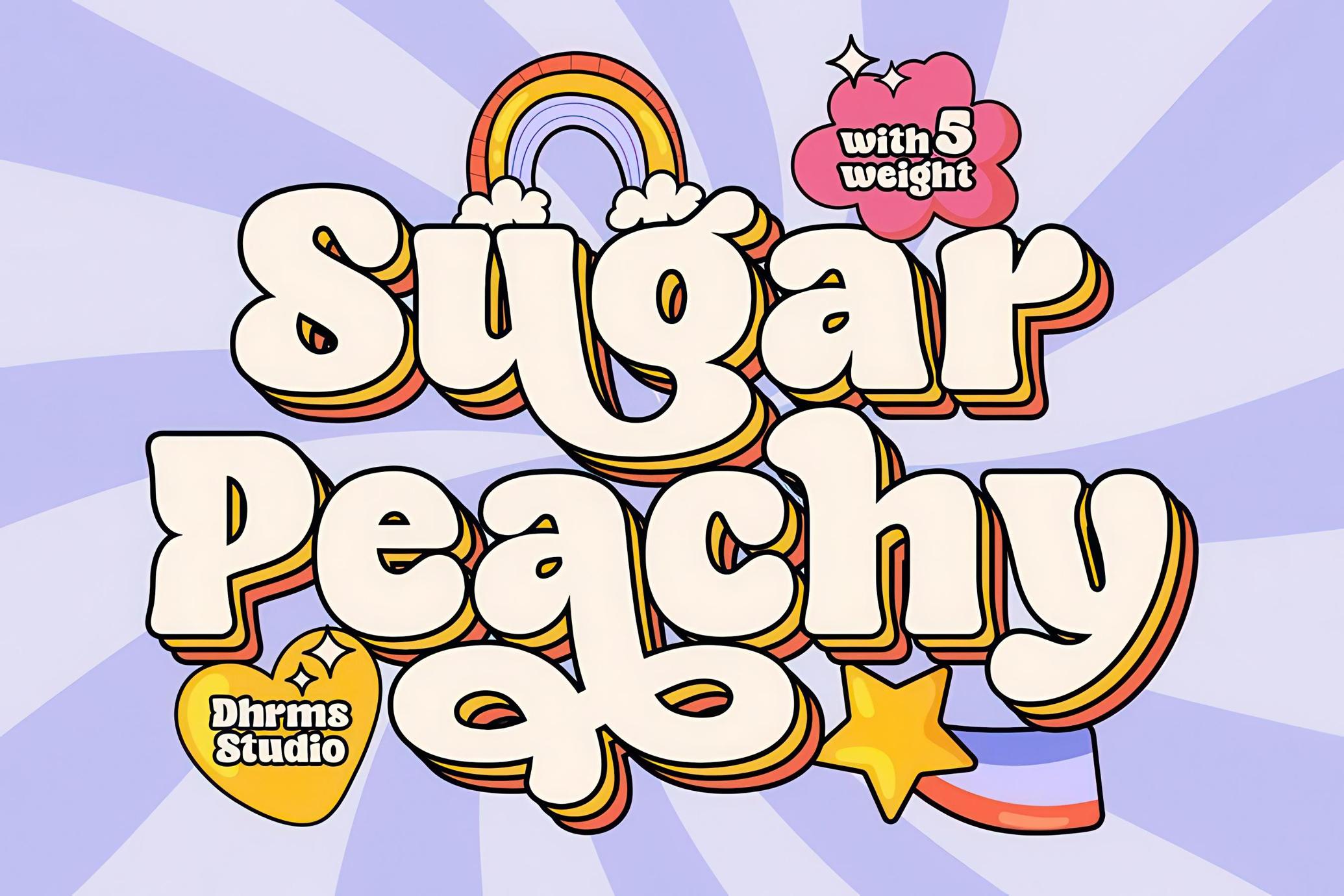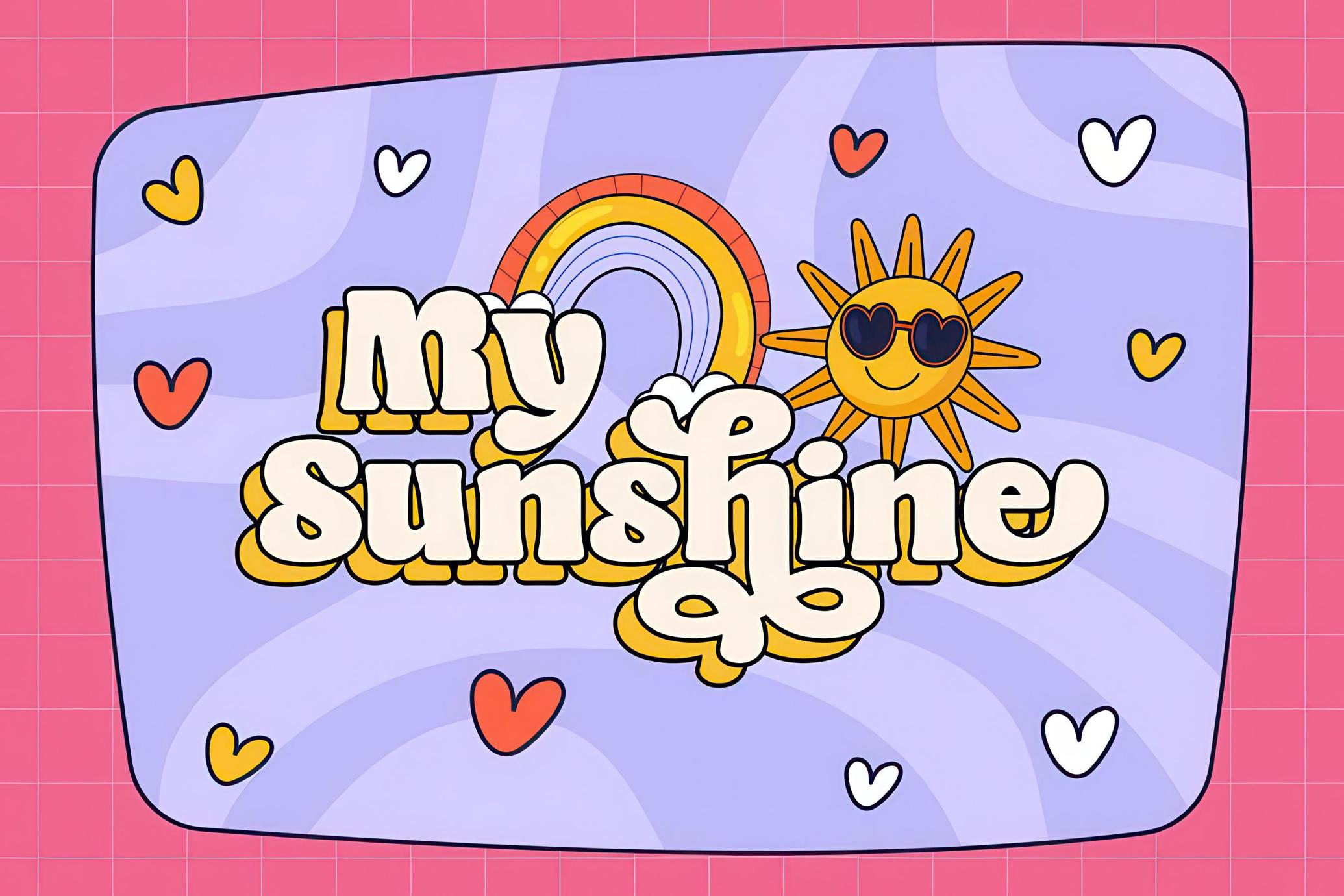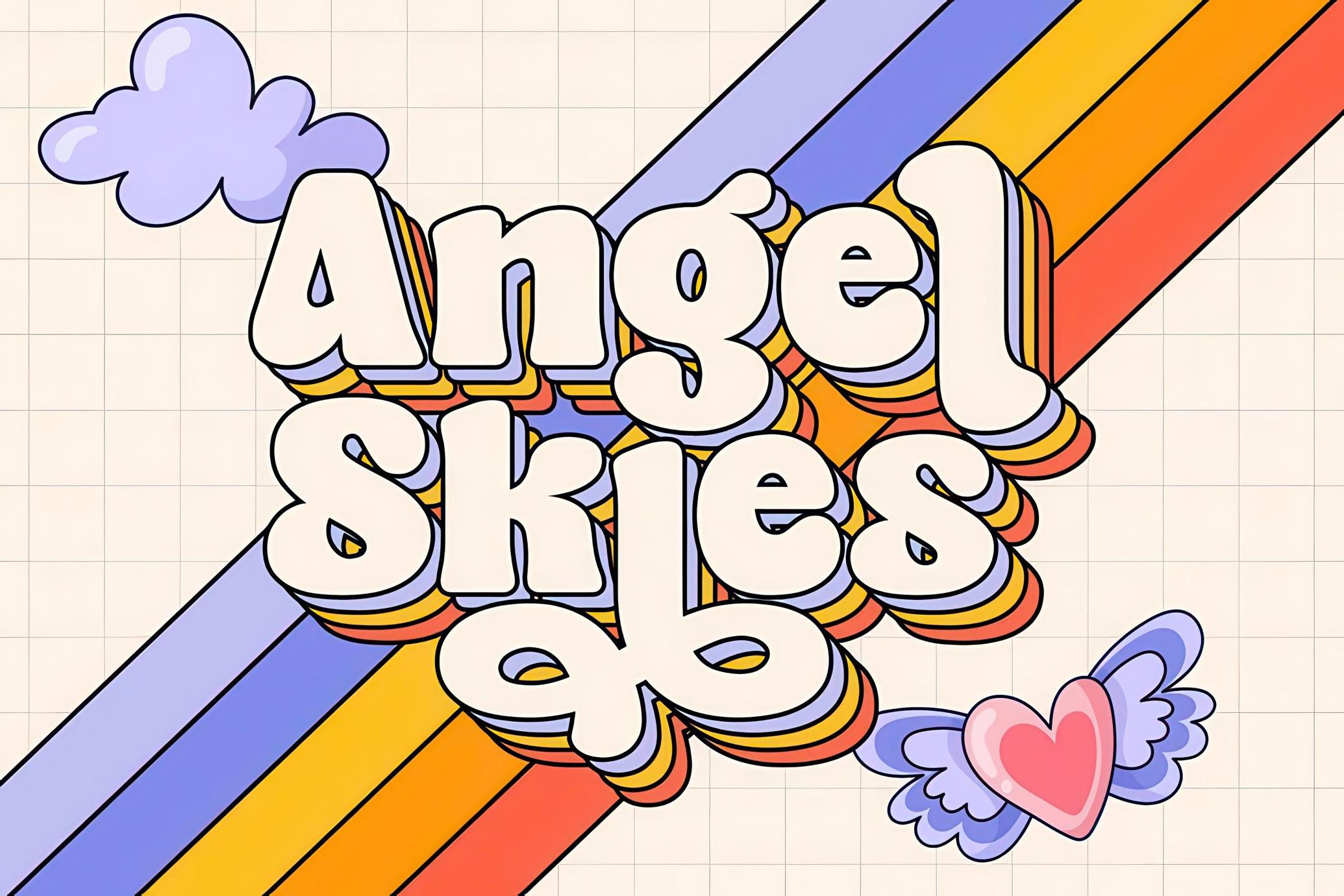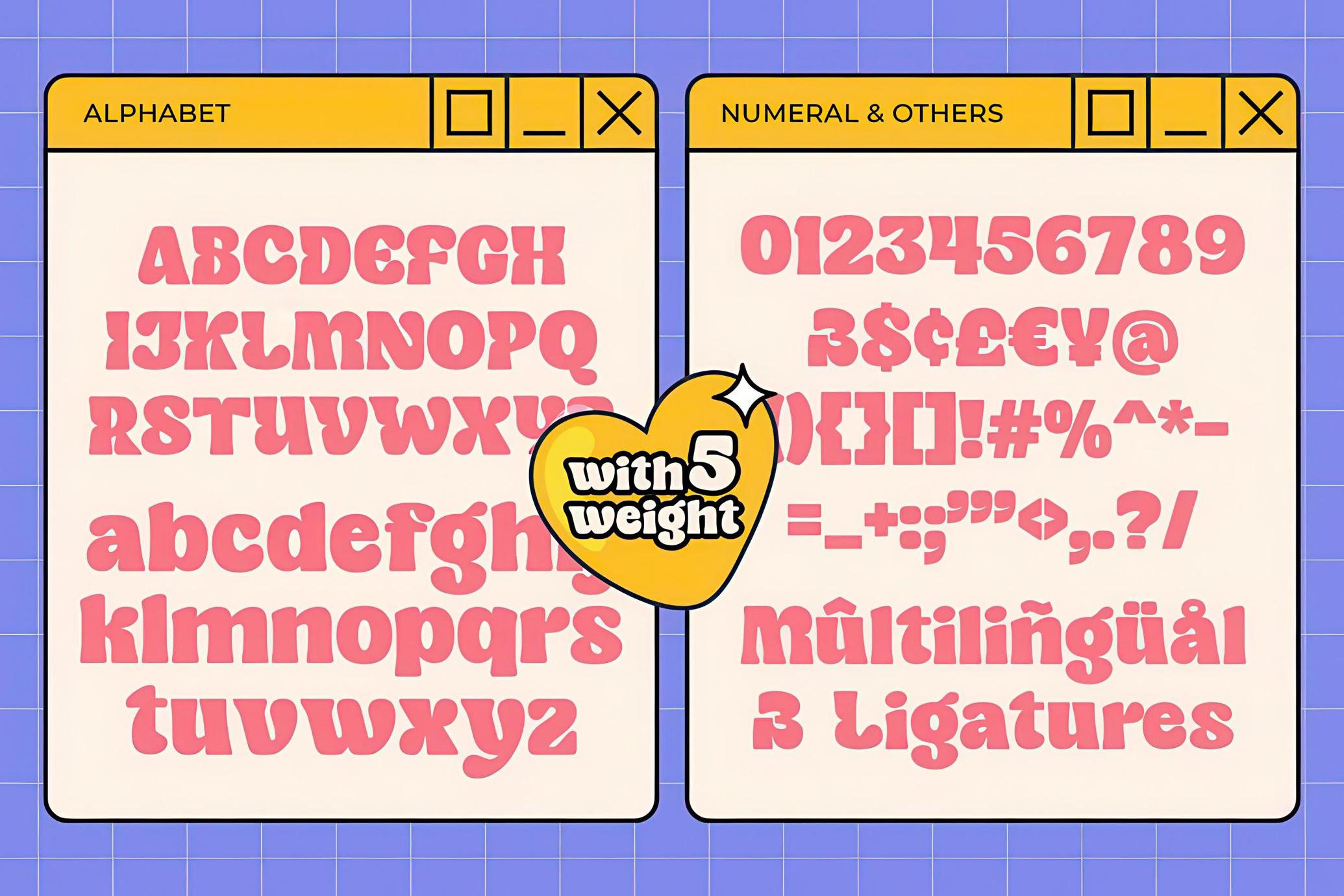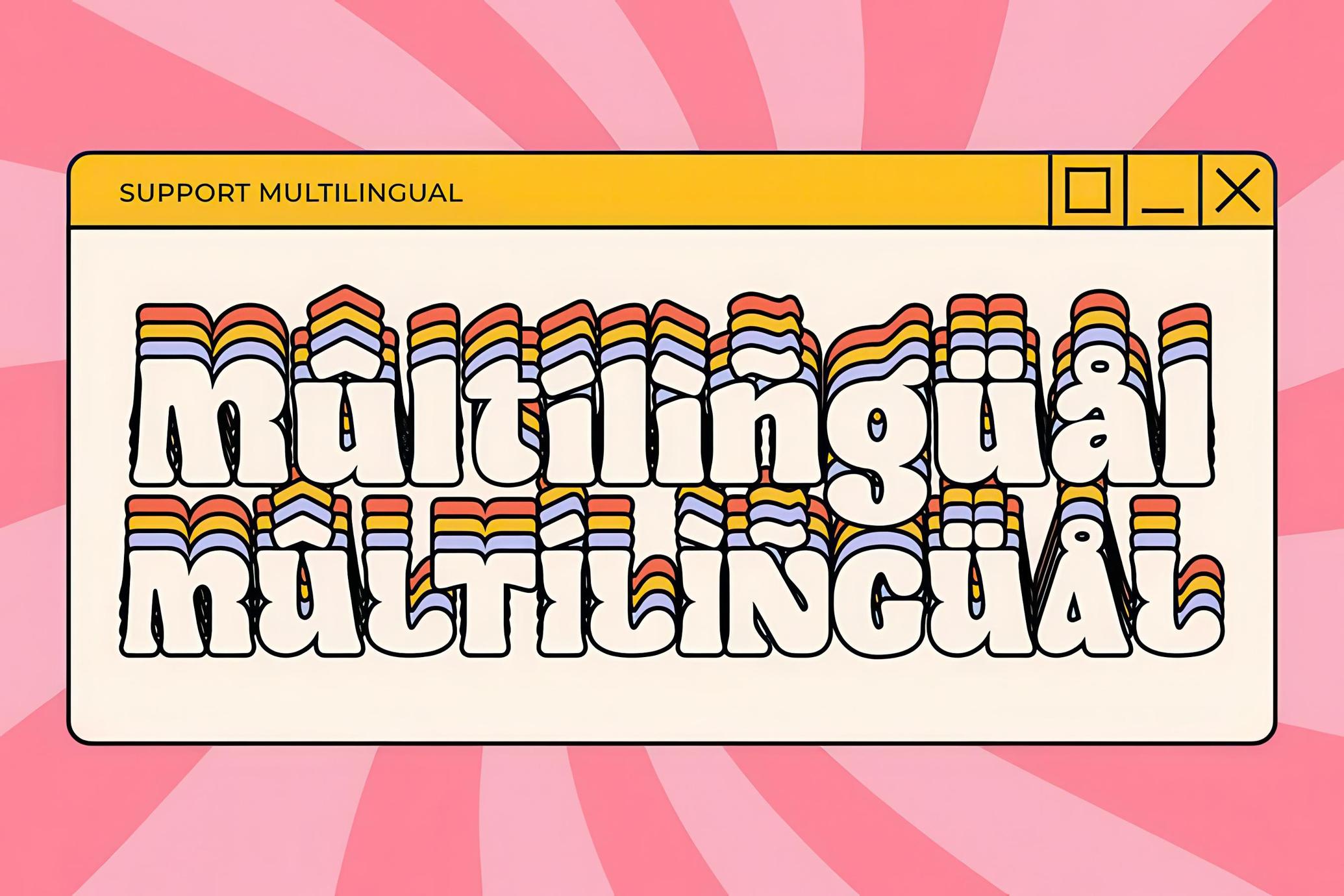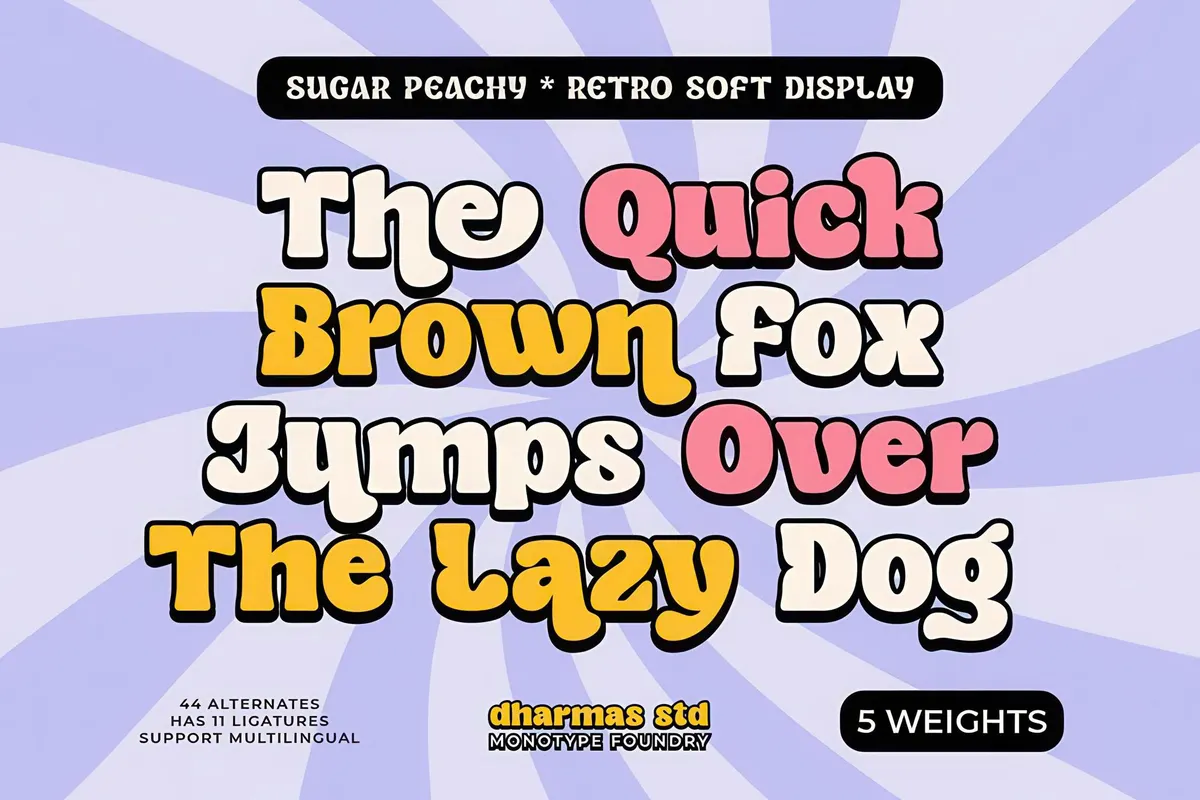
Sugar Peachy - Retro Soft Family
This groovy display font has a retro 70s style with soft and chewy characteristics that are perfect for display, titling, and even logos or headers. With 5 styles ranging from thin to black, you can use it for short text or large displays.
Plus, Sugar Peachy has special features like alternates and ligatures that make it ideal for all kinds of design purposes like branding, product design, websites, posters, stickers, merchandise, and more!
- Alternates and Ligatures
- Letters, numbers, symbols, and punctuation